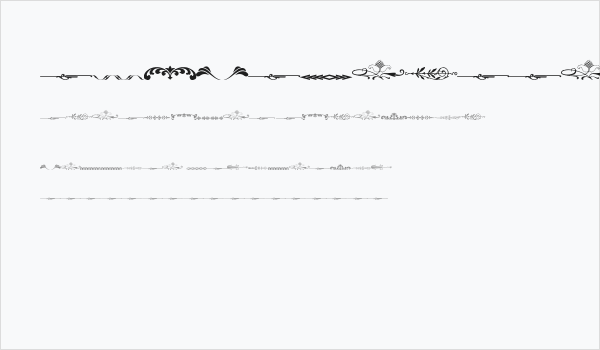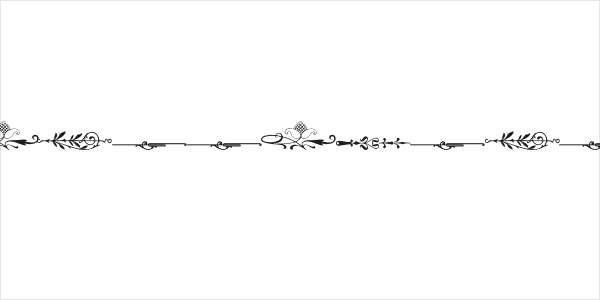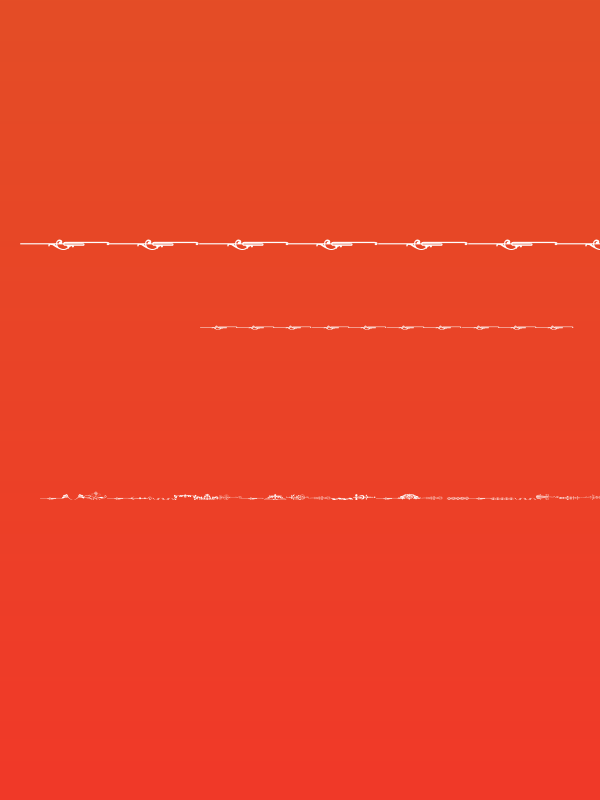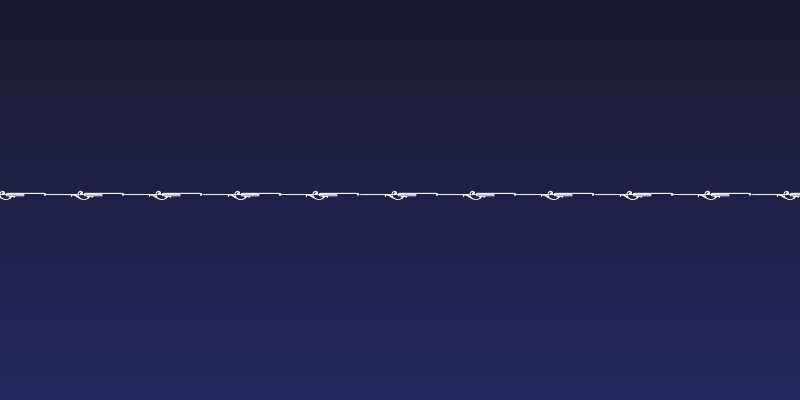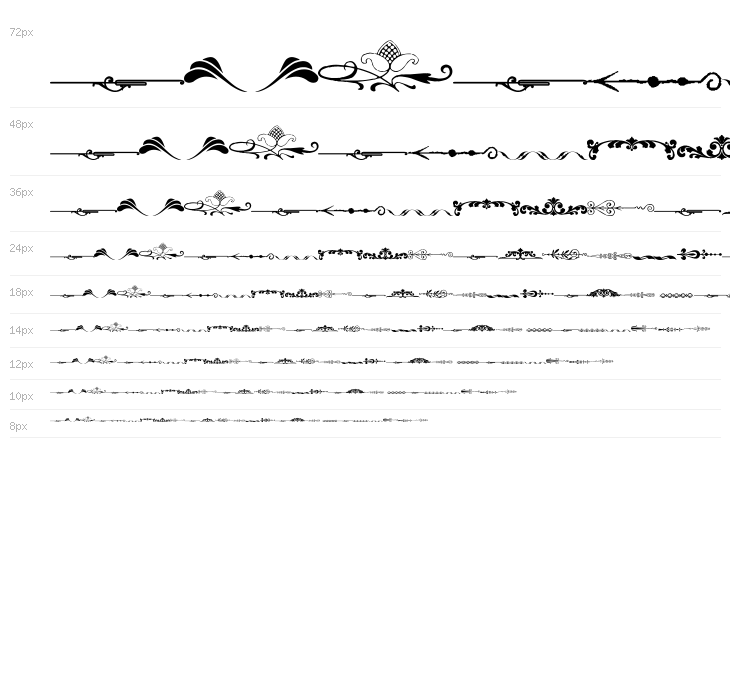
Sughayer Separates 11 Font
A decorative set of ornate horizontal separators featuring intricate floral, vine, and geometric motifs, designed to embellish or divide sections in layouts. The elements are highly detailed and symmetrical, with a vintage ornamental flair.
Overall StyleVintage, Decorative
Use CaseDividers, Borders, Invitations, Certificates
Proposed ProjectsWedding invitations, certificates, book chapter dividers, vintage-themed posters, decorative web dividers.